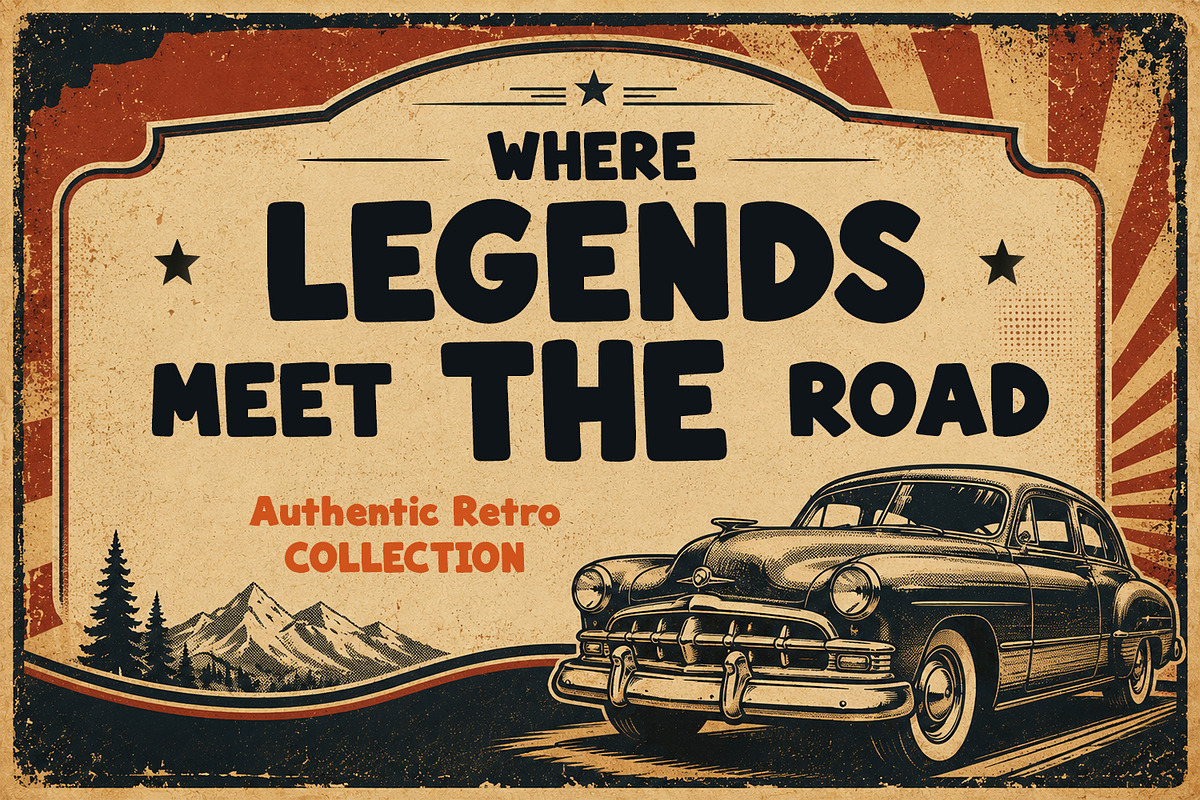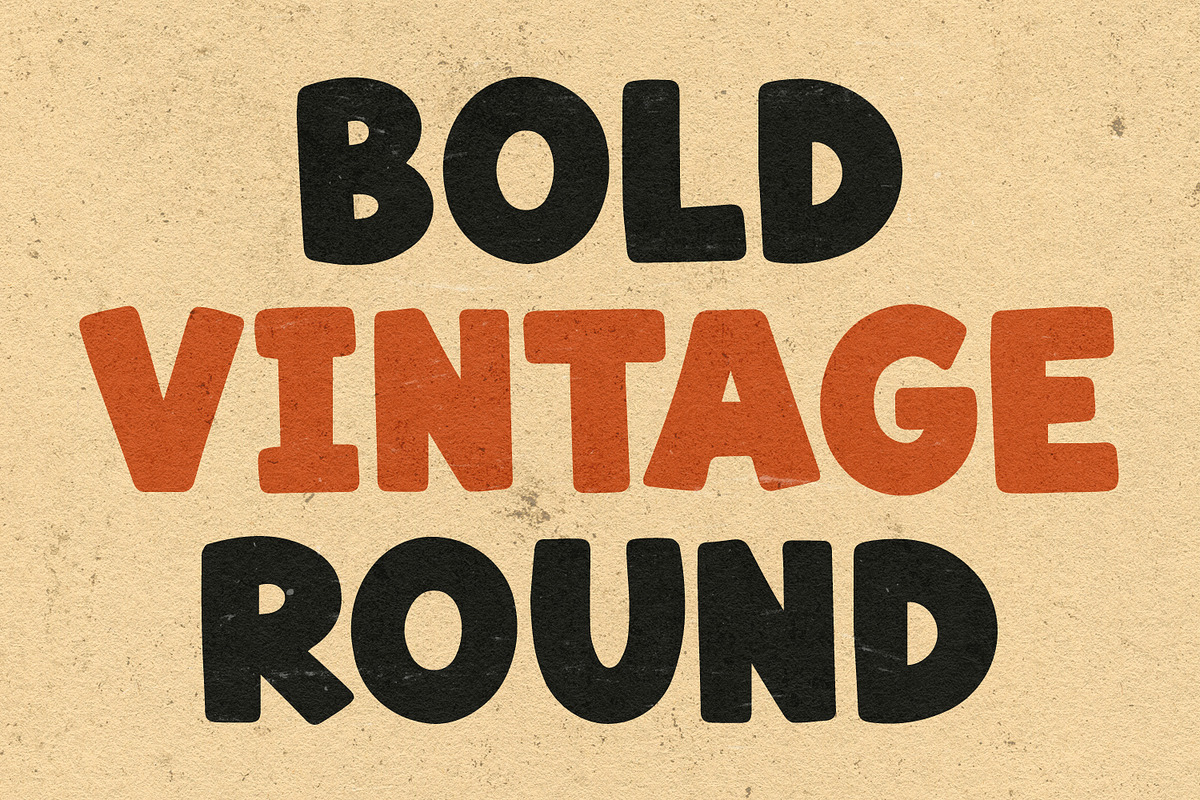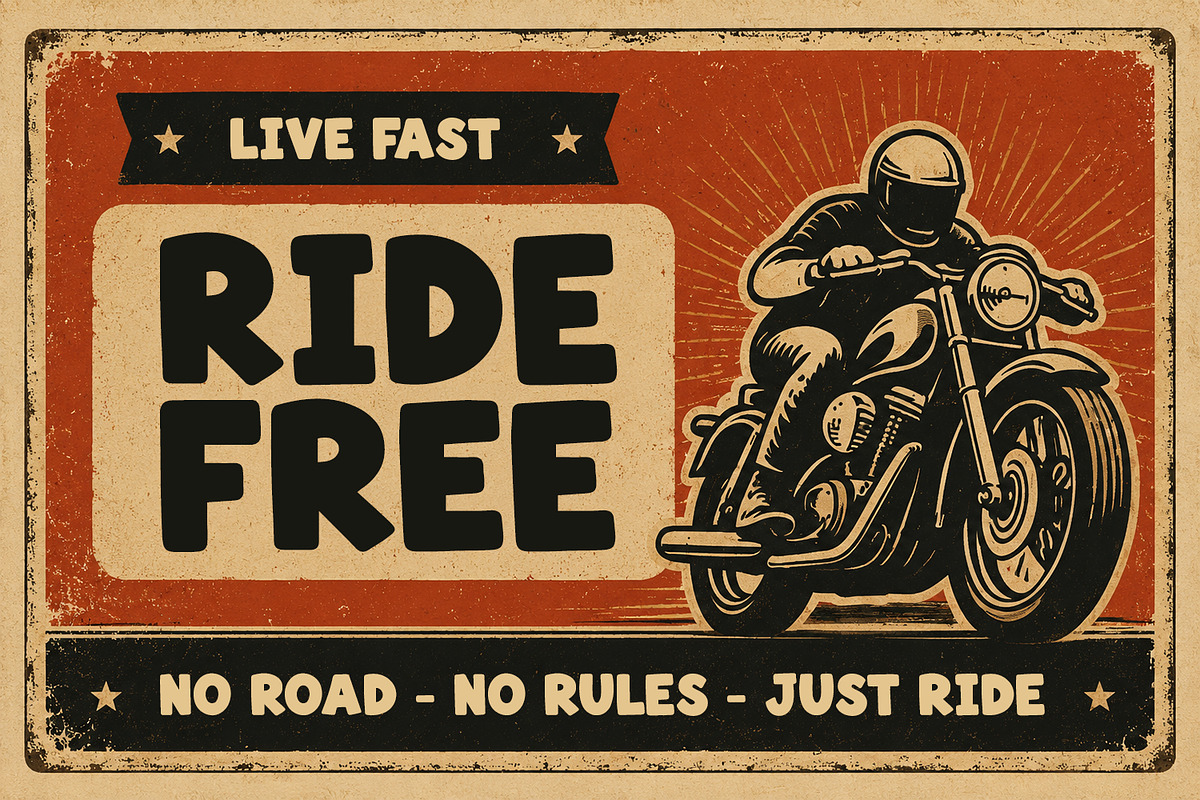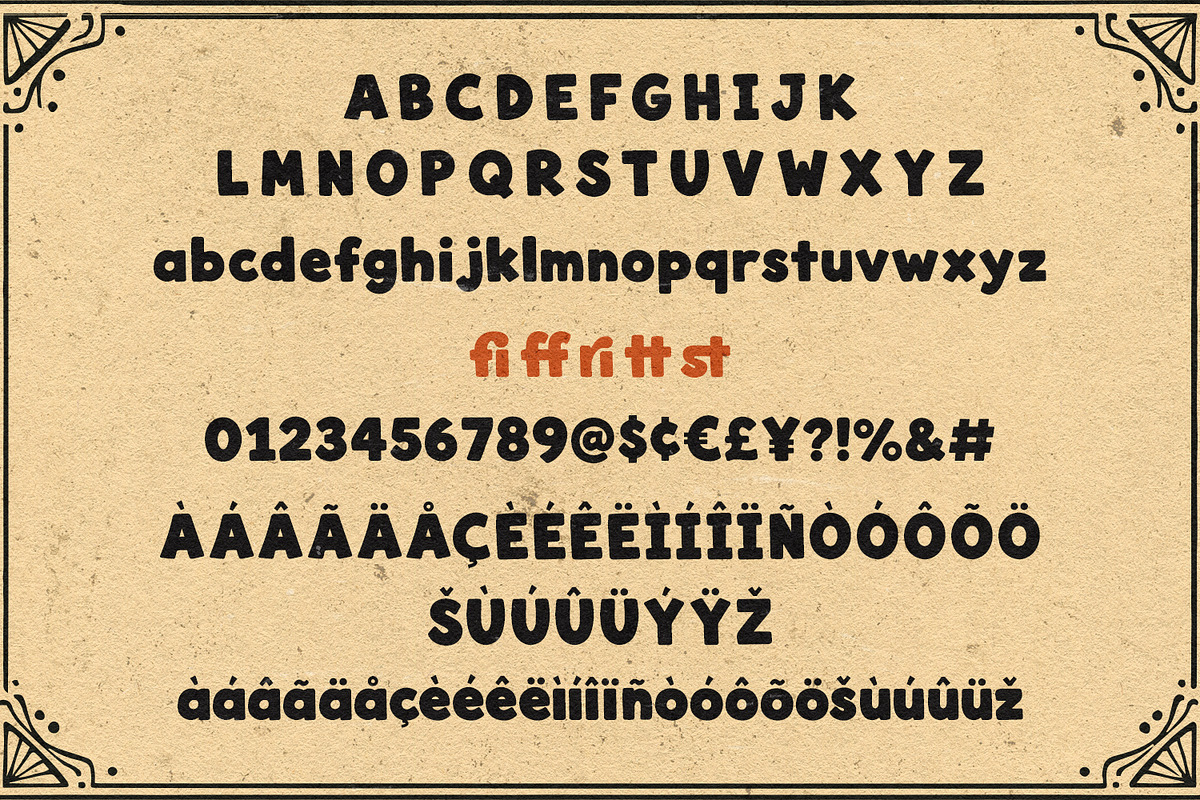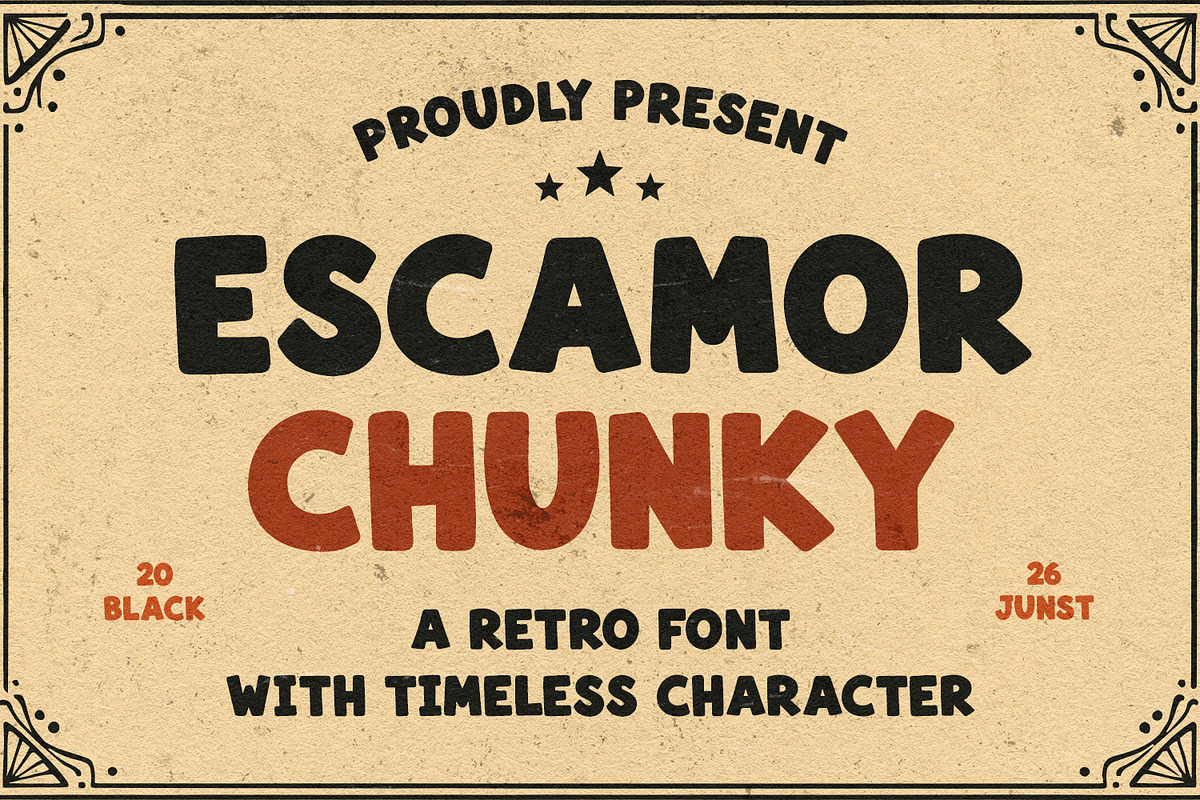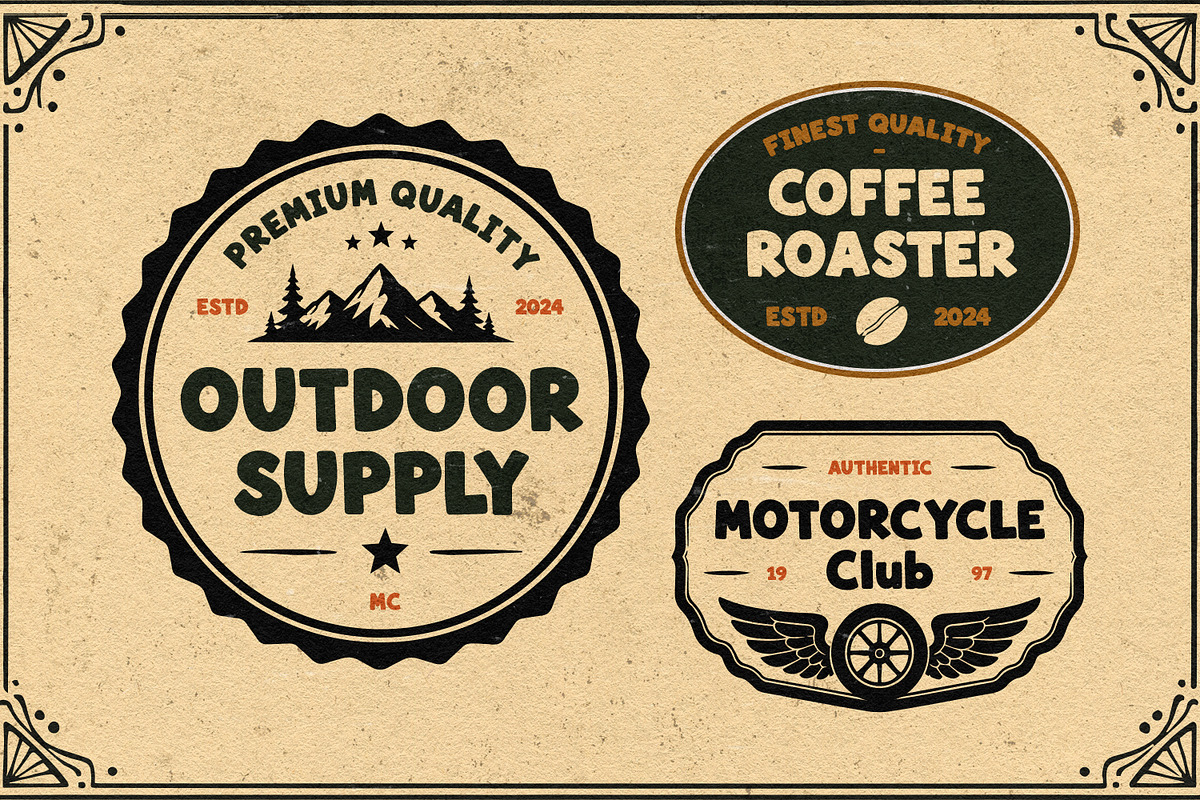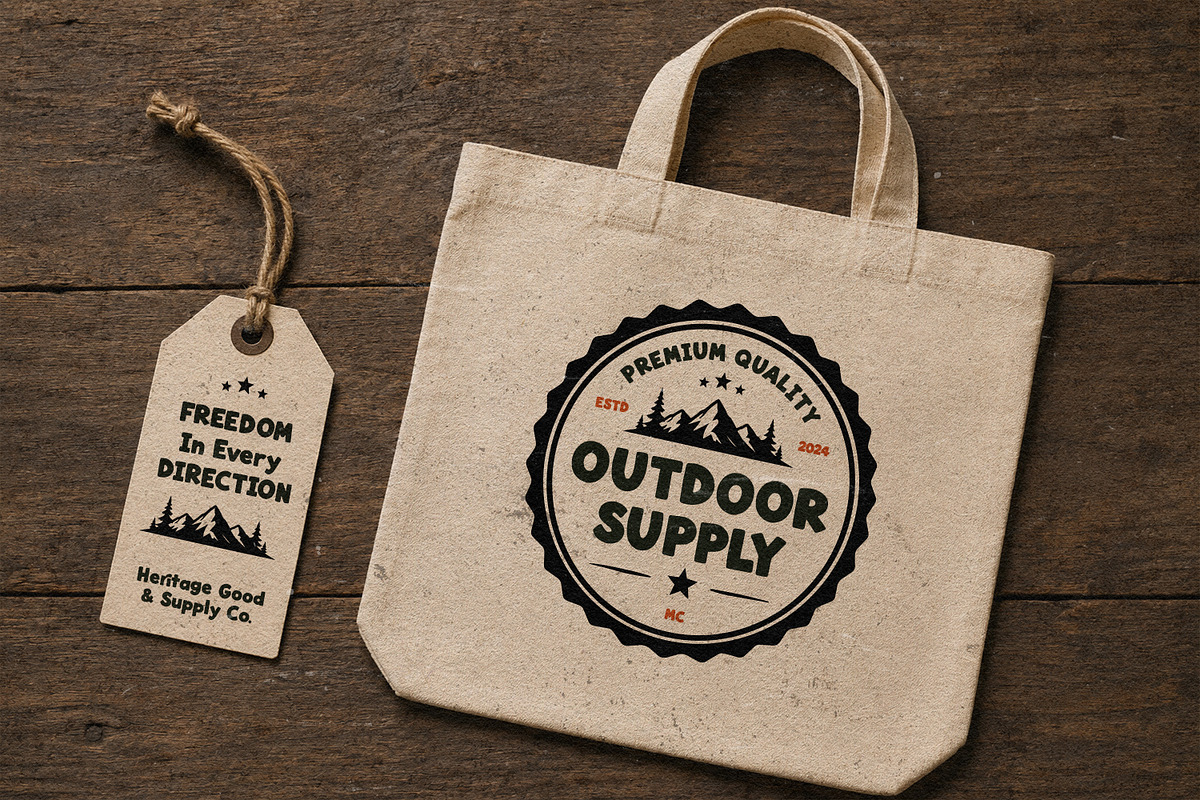
Escamor
Escamor Chunky is a bold retro display font inspired by vintage signage, nostalgic packaging, classic diners, and timeless advertising from the 60s and 70s. Featuring thick, rounded letterforms with a handcrafted personality, this typeface instantly brings warmth, fun, and authenticity to any creative project.
Designed to make headlines stand out, Escamor Chunky combines a playful vintage aesthetic with excellent readability. Whether you're creating logos, branding, posters, merchandise, packaging, café menus, or social media graphics, this font delivers a strong retro character that never goes out of style.
Perfect for designers who love bold typography with a nostalgic twist.